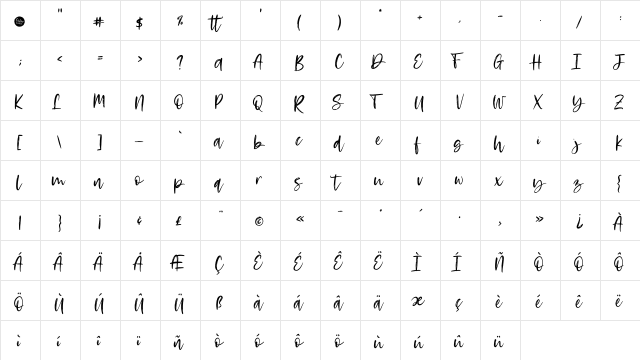
Rosetta Black Regular
| Designer | Clement Nicolle |
Design Context for Rosetta Black Typeface
Rosetta Black is a composed and adaptable typeface that performs quietly and consistently across a wide range of design contexts.